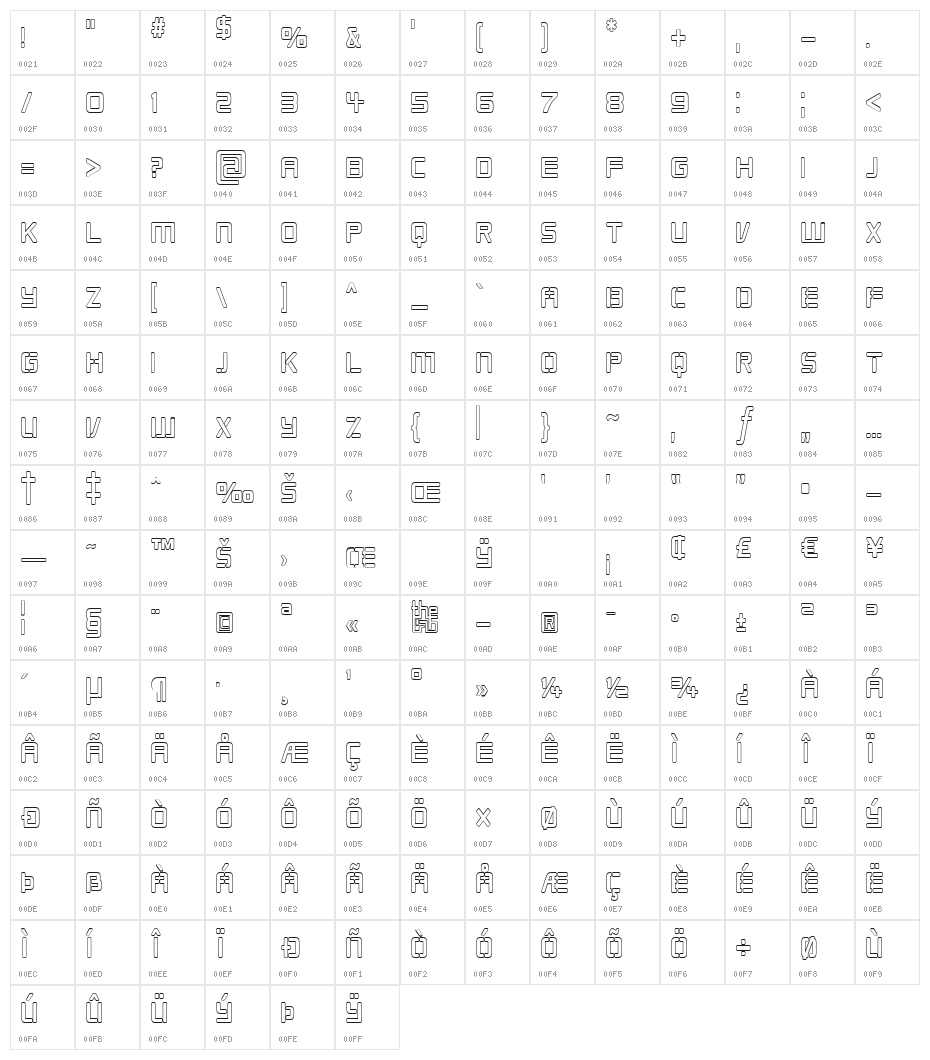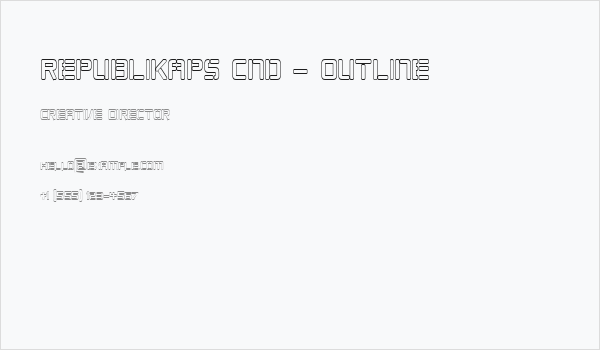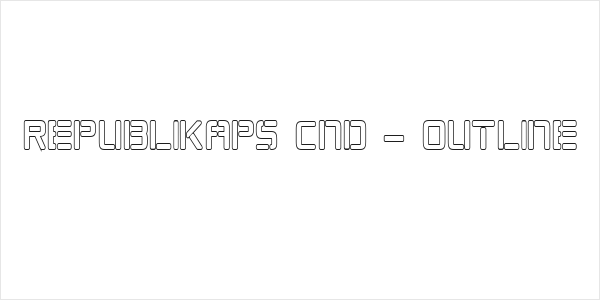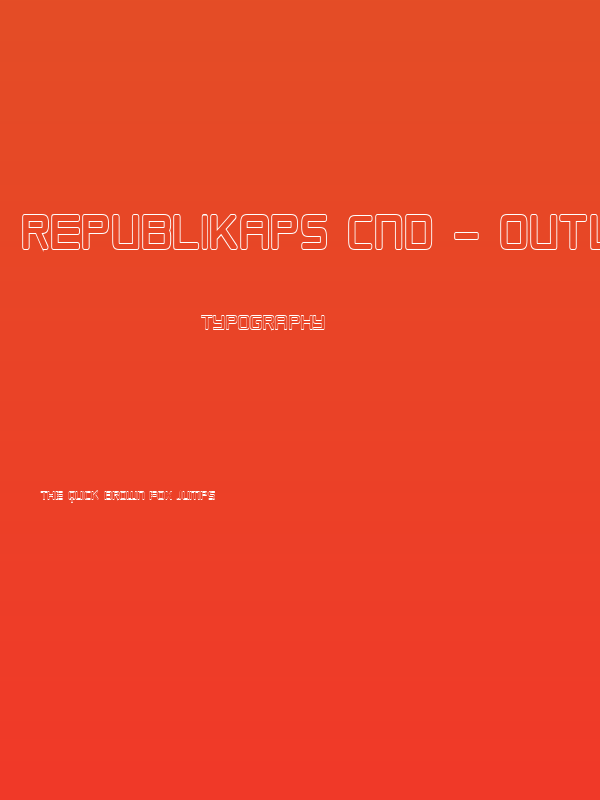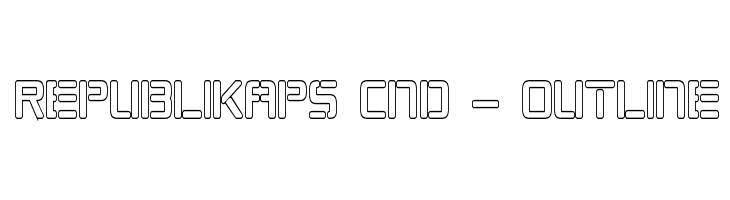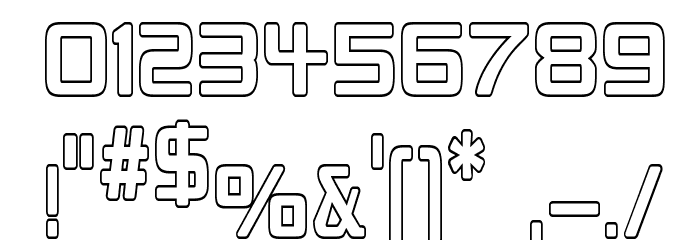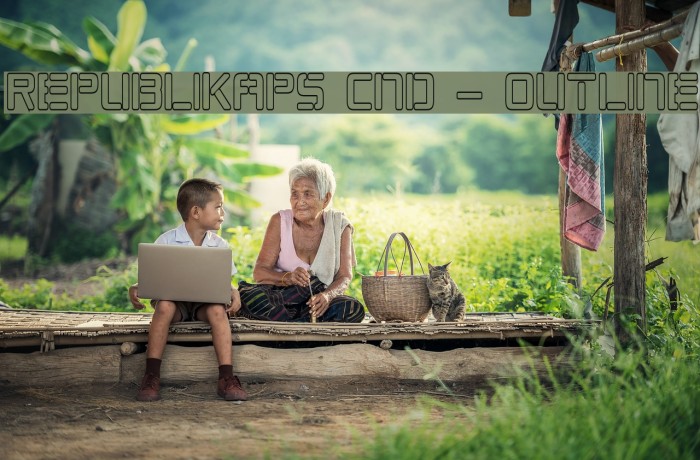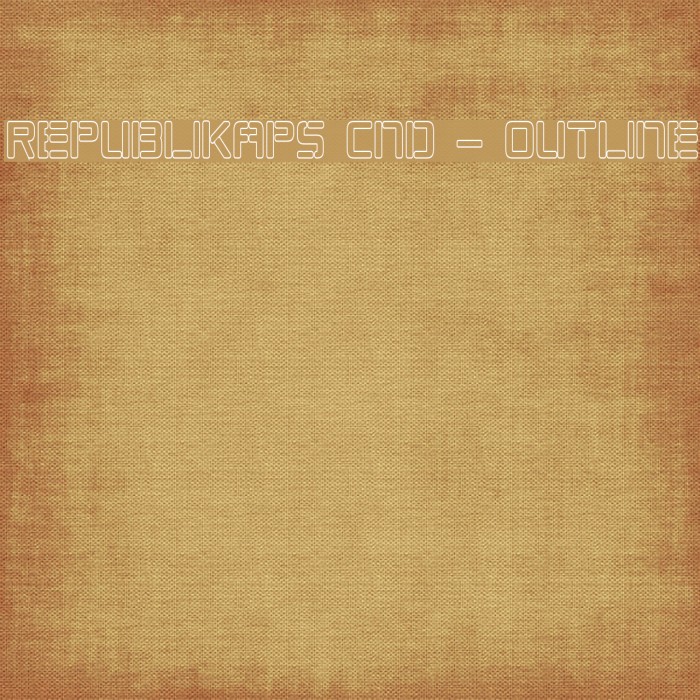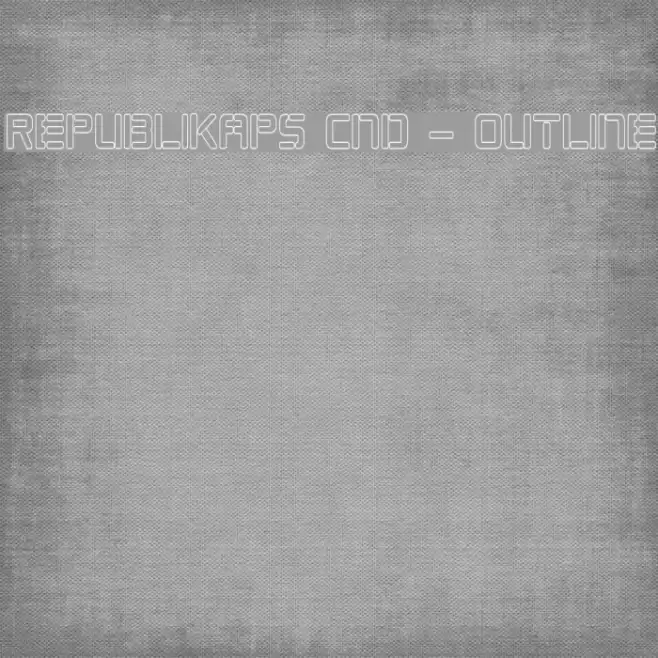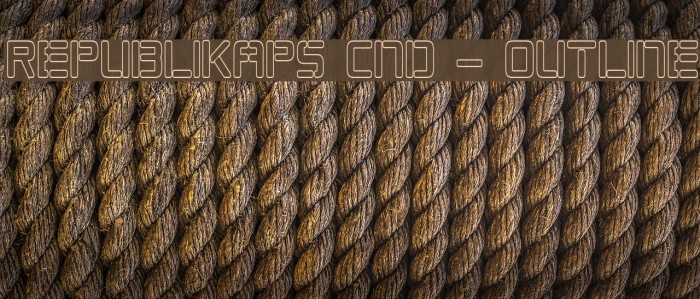
Republikaps Cnd - Outline Font
Republikaps Cnd - Outline Description
This font features a distinct outline style with a modern and geometric appearance. Each character is crafted with precision, showcasing clean lines and a uniform thickness that creates a cohesive look. The uppercase and lowercase letters maintain a consistent design, emphasizing a futuristic and technical aesthetic. The numerals and special characters are designed to match the overall style, ensuring versatility across various applications. The font's outline nature allows it to stand out, making it ideal for creative and bold design projects.
| Proposed Projects | Ideal for branding, headlines, posters, and digital artwork where a modern and eye-catching look is desired. |